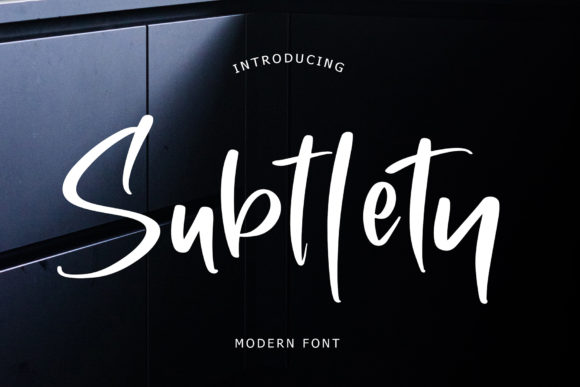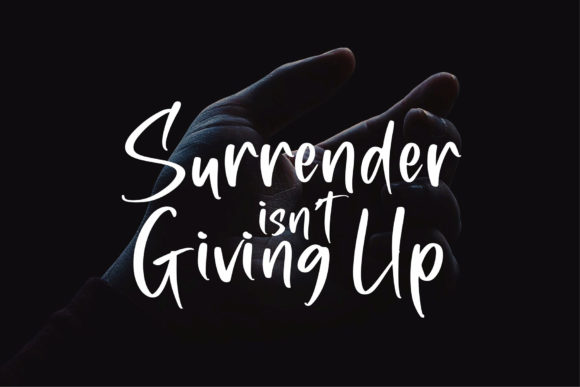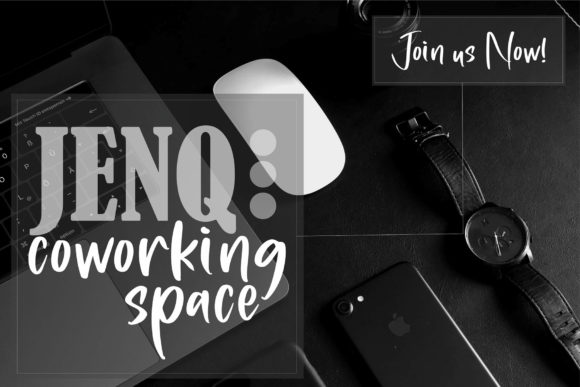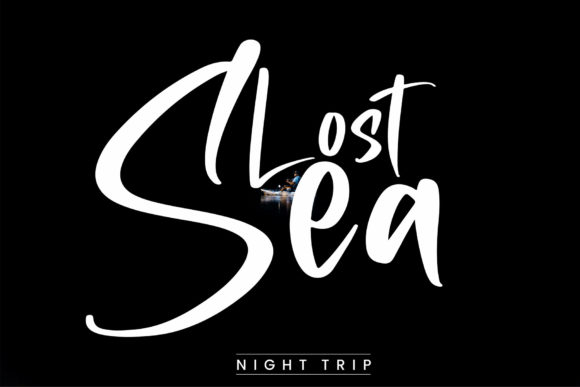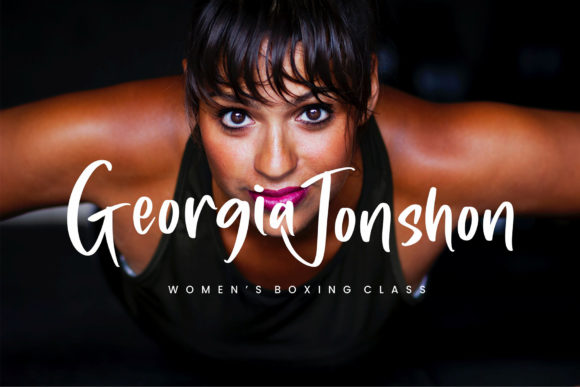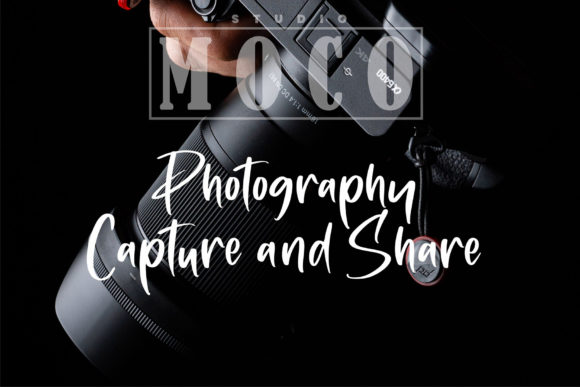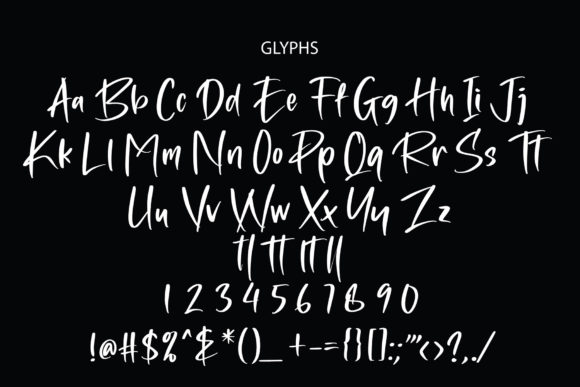
Subtlety Font
About Subtlety Font
Subtlety is an exciting handwritten font. Get this wonderful design and give your creative ideas a unique and personal touch!
Fall in love with its stylish look and elevate your designs to the highest level.